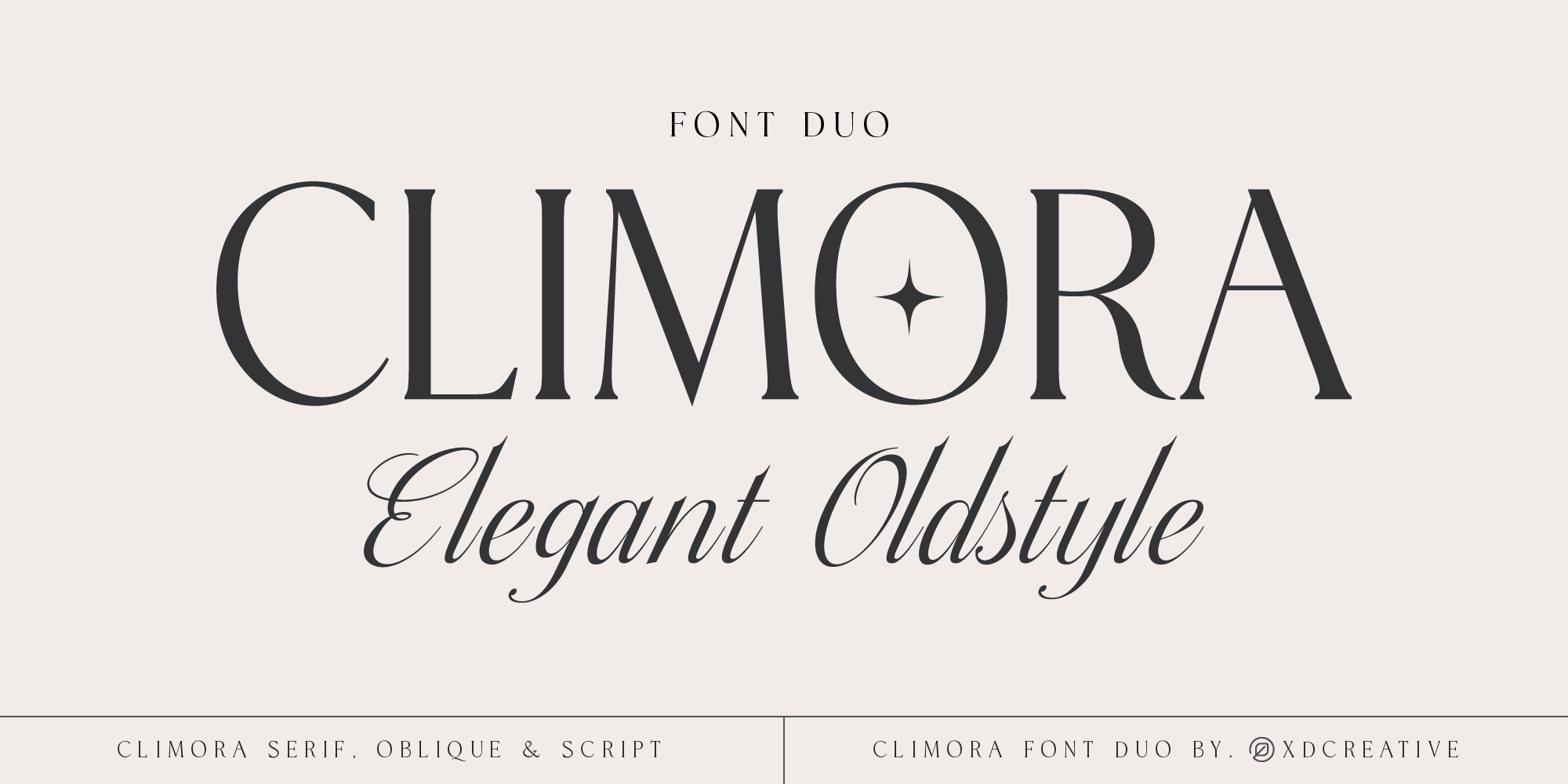
Climora Duo Font is a versatile and exceptionally harmonious typeface, perfectly suited for projects that demand a blend of complementary styles and outstanding design flexibility. As a "duo" font, it often pairs a beautifully flowing script with a clean, modern sans-serif or a stately serif, allowing for instant visual synergy in your designs. Imagine it gracing elegant wedding invitations where the script handles names and the sans-serif provides clear details, adding a sophisticated and dynamic edge to branding for high-end products, or bringing a cohesive aesthetic to mixed-media social media graphics. It's also an excellent choice for crafting impactful magazine layouts that require both expressive headlines and readable body text, designing unique packaging that communicates both luxury and clarity, or infusing digital content with a well-rounded and inviting personality. If you're looking for a font system that offers both artistic flair and functional balance, Climora Duo Font is an outstanding selection.
What makes Climora Duo Font so exciting? It’s its inherent versatility, allowing designers to create perfectly paired typography with minimal effort. This font's two distinct yet complementary styles are meticulously crafted to work seamlessly together, providing a professional and polished look without the need for extensive font pairing experimentation. Whether you need an expressive flourish for a title and a clean companion for information, or simply enjoy the visual contrast, Climora Duo Font offers boundless creative possibilities. Its carefully balanced letterforms and optimized spacing ensure excellent readability across various applications, guaranteeing your message is communicated beautifully and with stylistic integrity. Designers will appreciate its ability to streamline their workflow while elevating the visual appeal of any project, making it a go-to choice for achieving sophisticated and engaging outcomes.
The Climora Duo Font family is uniquely designed around its core "duo" concept, typically featuring at least two primary styles that are built to complement each other. This often includes a graceful script or an elegant display font, paired with a versatile sans-serif or a classic serif, ensuring a comprehensive toolkit for diverse design needs. While it might focus on these two main styles, the integrated design guarantees harmonious typographic hierarchies and consistent branding across various mediums. Discover the seamless synergy of Climora Duo Font Free Download and infuse your designs with an unforgettable sense of balanced elegance and dynamic creativity.